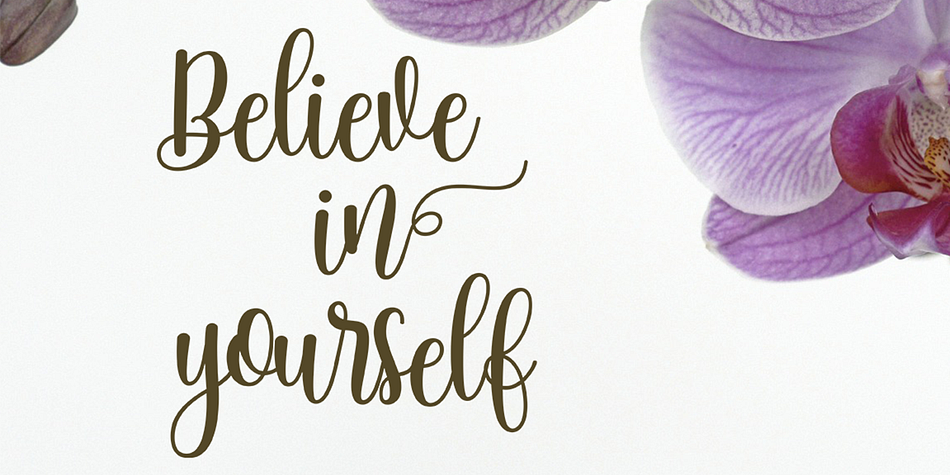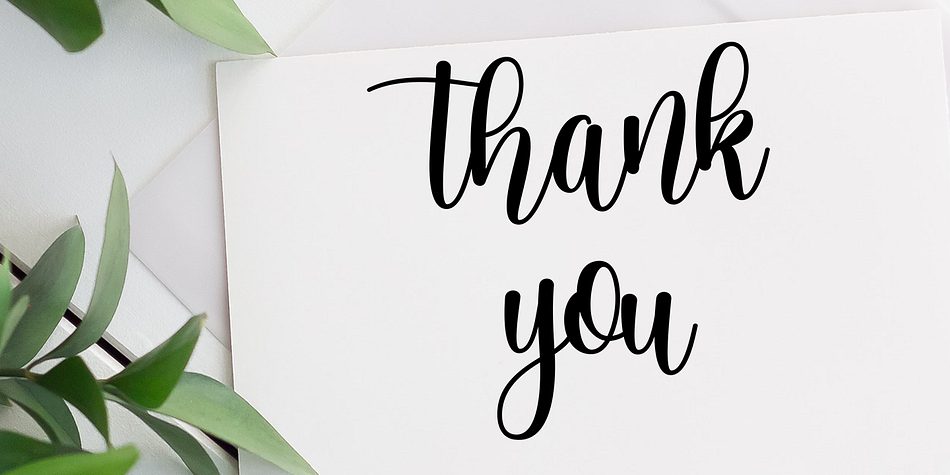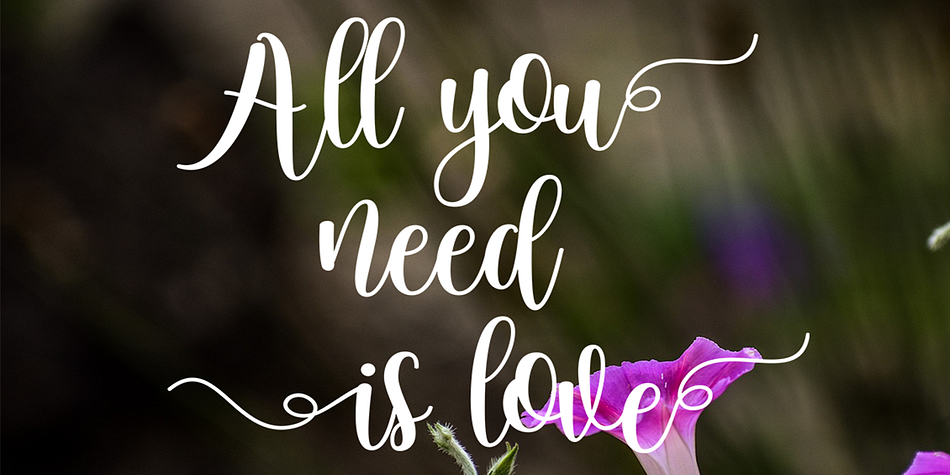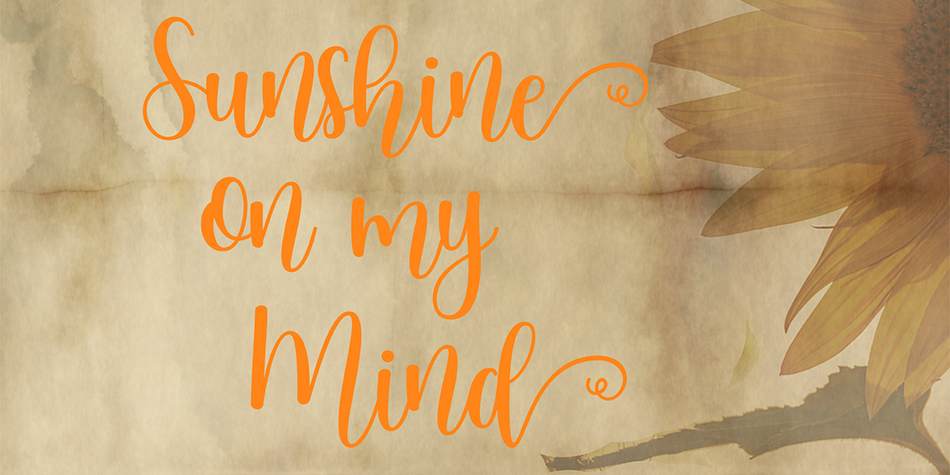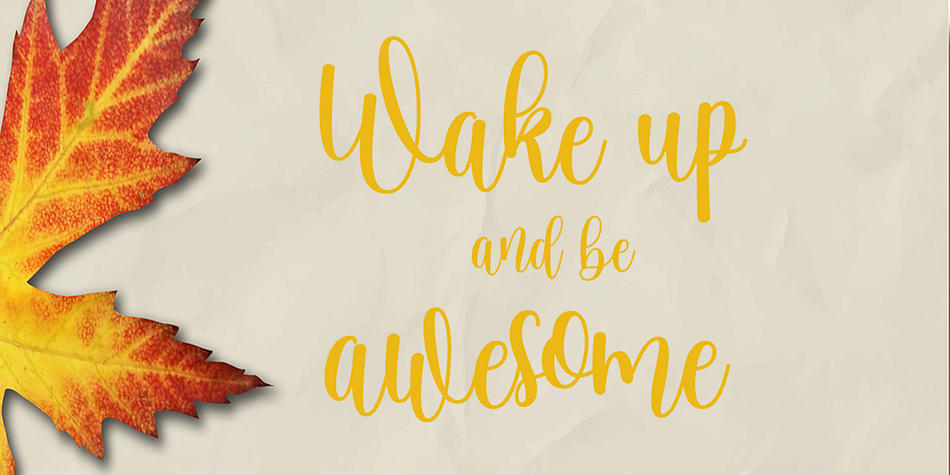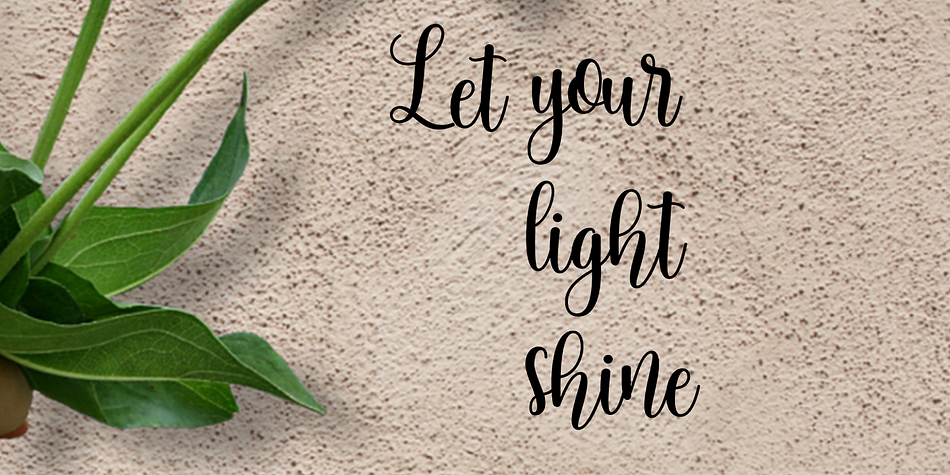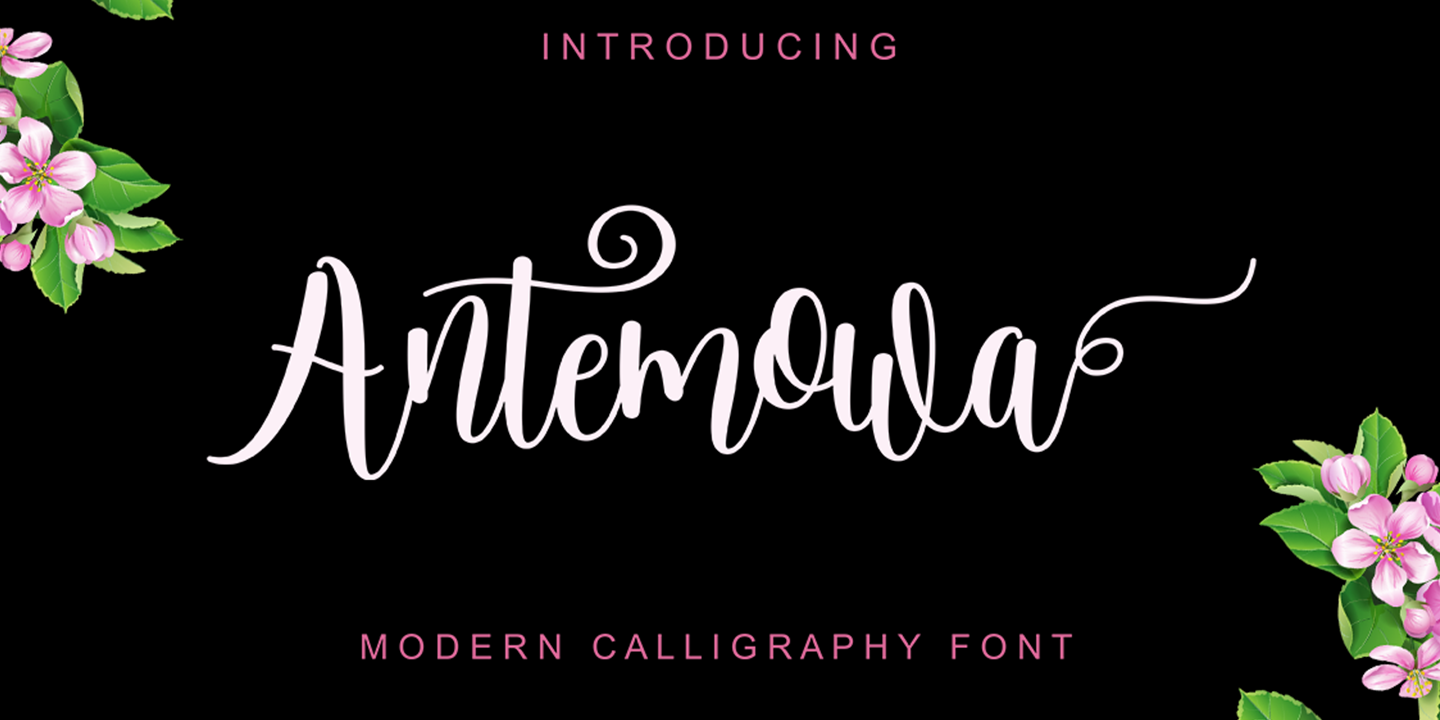
Antemowa
Antemowa is a modern calligraphy font family published by Gatype.
Antemowa Script is modern script font, every single letters have been carefully crafted to make your text looks beautiful. With modern script style this font will perfect for many different project ex: quotes, blog header, poster, wedding, branding, logo, fashion, apparel, letter, invitation, stationery, etc.
Antemowa Script including alternate glyph and beautiful swirl.